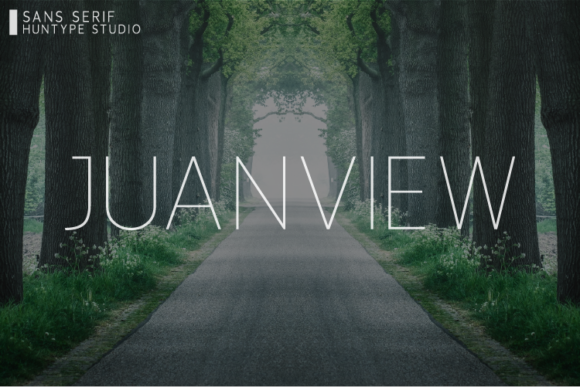
Are you a beauty enthusiast yearning to create a captivating online presence for your brand? Look no further than Juanview Font, the ultimate typographic masterpiece designed to elevate your beauty website to new heights.
Juanview Font is a captivating sans serif typeface that exudes elegance and sophistication, leaving an unforgettable impression on your audience. Its meticulously crafted curves and clean lines dance harmoniously to form a symphony of visual brilliance that will make your content shine.
Immerse yourself in a world of limitless possibilities with Juanview Font. Its versatile nature seamlessly adapts to a myriad of design aesthetics, allowing you to express your unique brand identity with confidence. Whether you're crafting captivating blog posts, alluring social media campaigns, or stunning e-commerce pages, Juanview Font will effortlessly transform your words into works of art.
Capture the essence of beauty with every stroke of Juanview Font. Its ability to convey emotions through its graceful forms will captivate your audience, drawing them deeper into your captivating world. Allow your brand's message to resonate with heartfelt authenticity as Juanview Font weaves its magic, creating an unforgettable connection with your customers.
Discover the power of Juanview Font today and unlock a world of typographic enchantment. Let its timeless beauty elevate your website, leaving a lasting impression that will turn casual visitors into loyal admirers.